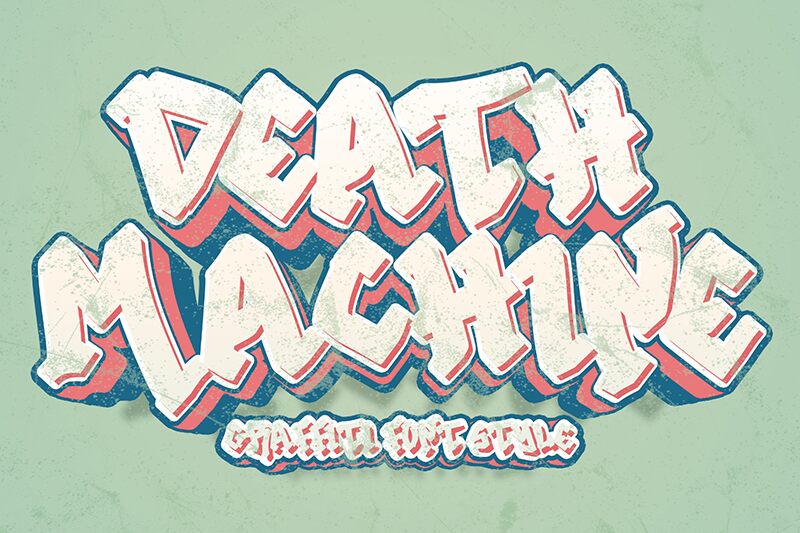
Death Machine font by Yoga Letter is a graffiti-inspired font with bold and captivating letters similar to those seen on urban walls. Its style makes it perfect for longer attention-grabbing paragraphs or short impactful messages. Some letters are not legible at first glance which draws more interest and can have the reader attempt to understand your messages.
Apply the free display font in flat poster designs, packaging boxes, brand logos, album covers, t-shirt graphics, and movie titles. It fits perfectly for social media use where viewers scroll fast as Death Machine forces them to stop and read attentively.